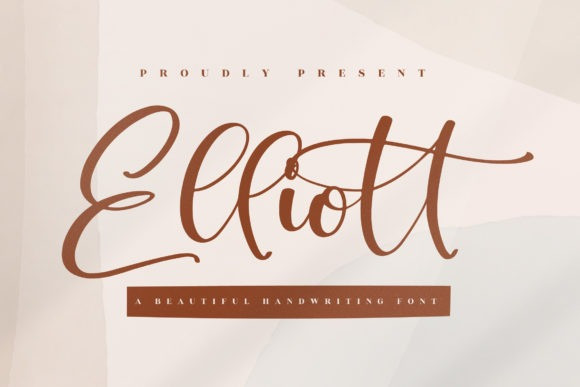
Elliott Script Font
Elliott Script Font, is an equally sophisticated and bold handwritten font that’s great for delivering any message with confidence, authenticity and charm. This font is PUA encoded which means you can access all glyphs and swashes with ease!